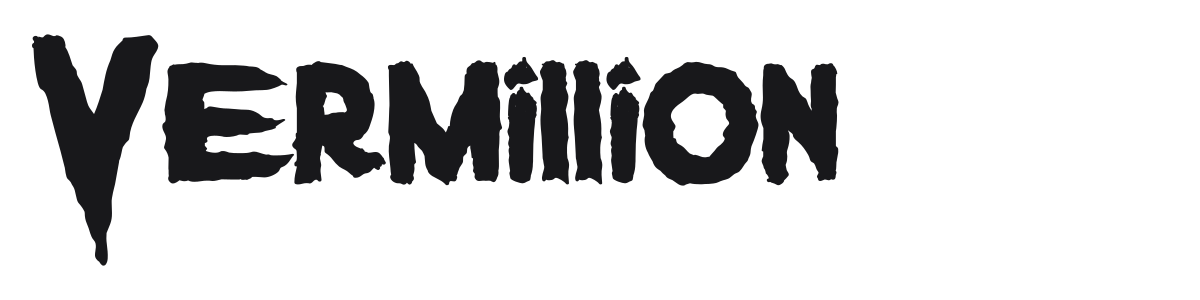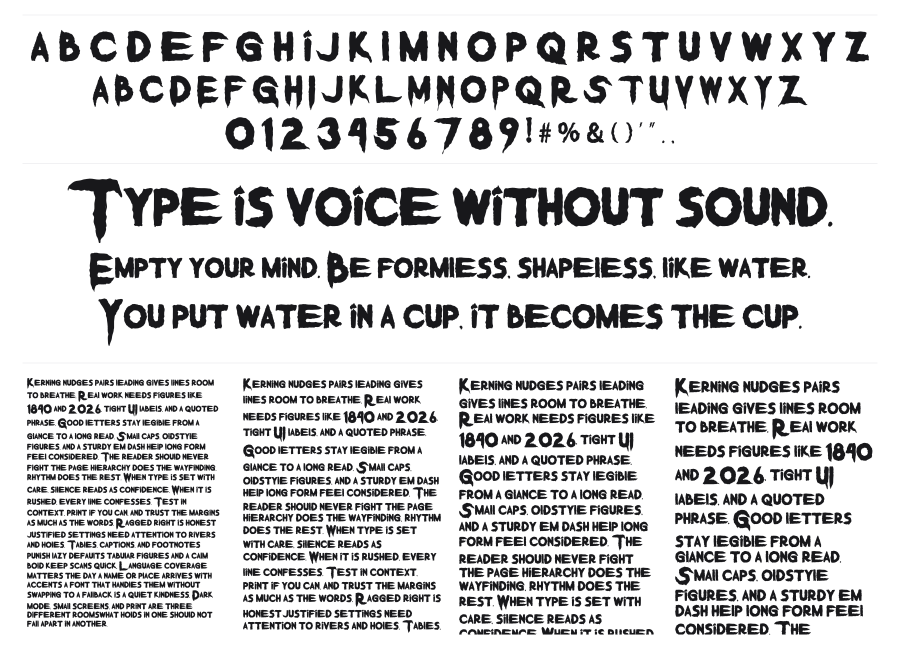
Vermillion
Vermillion is a bold distressed display font with heavily eroded edges and rough, organic texture across every character. The chunky weight and irregular surfaces give it a raw, punk sensibility that works well for streetwear branding, band merchandise, and poster headlines. It reads loud without trying.